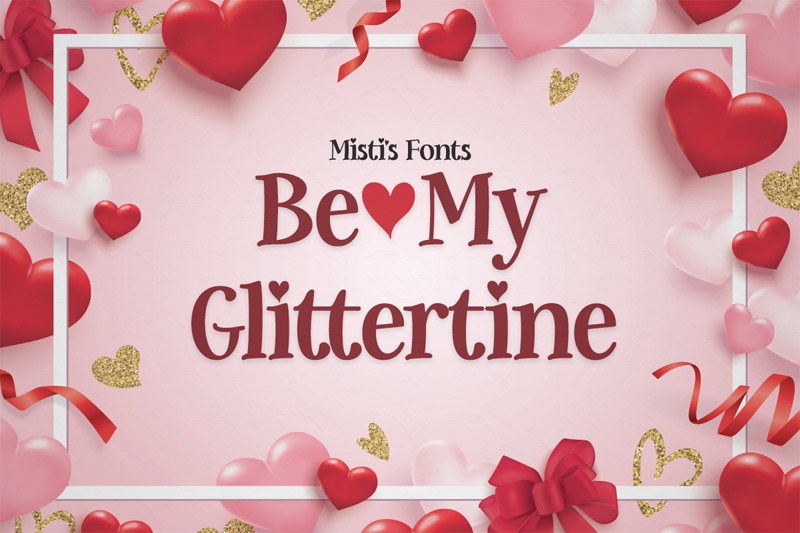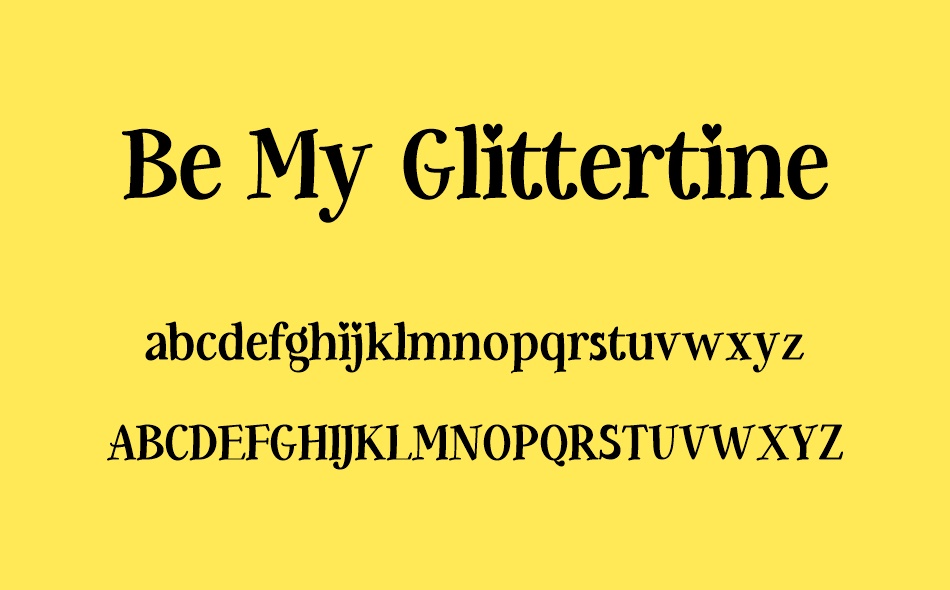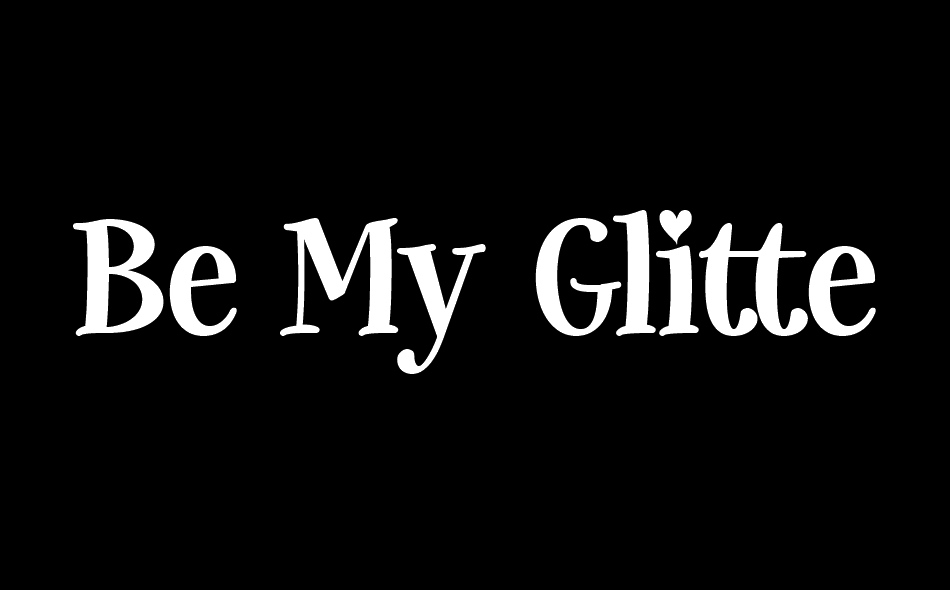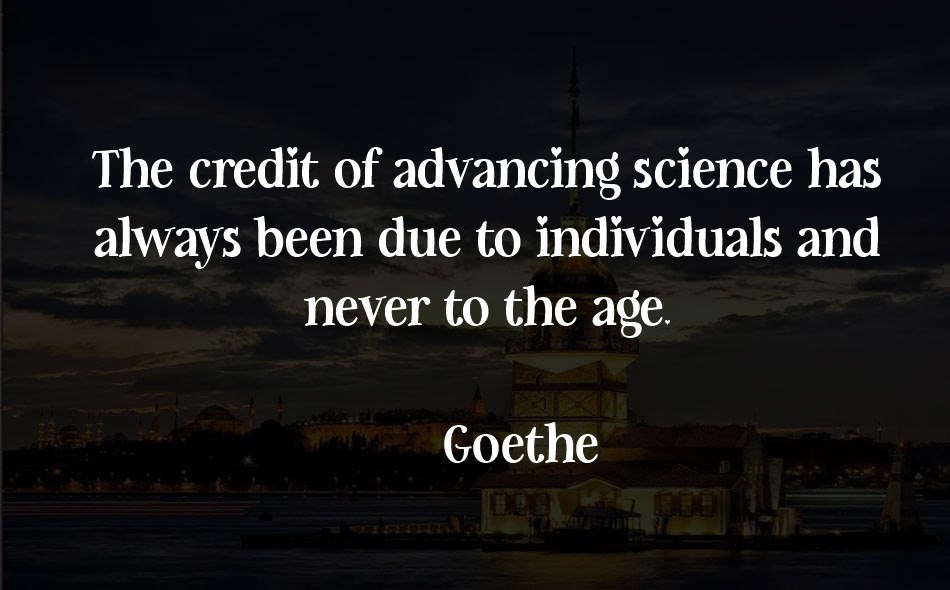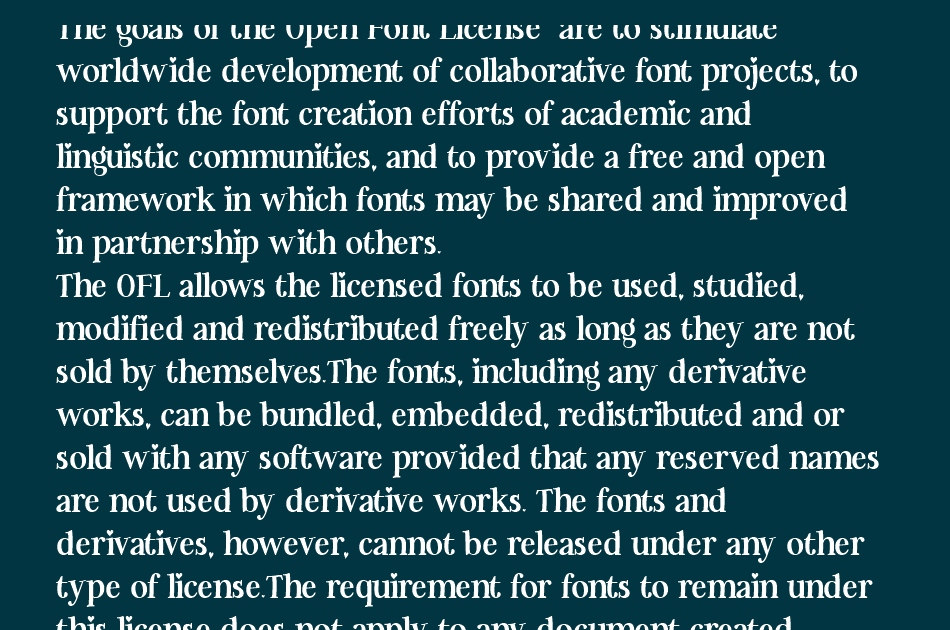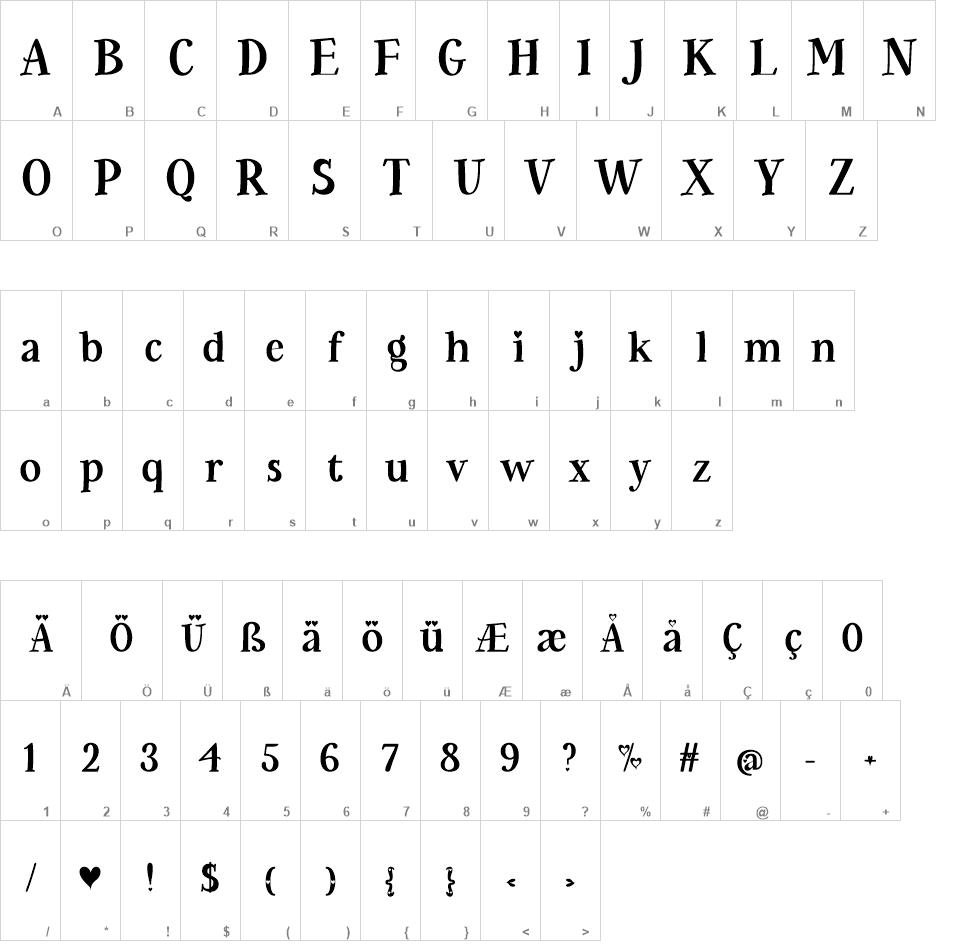
Be My Glittertine font
Be My Glittertine is a bold, charming, and heart-filled serif font. Allow its whimsical and jolly style to inspire your Valentines Day projects.